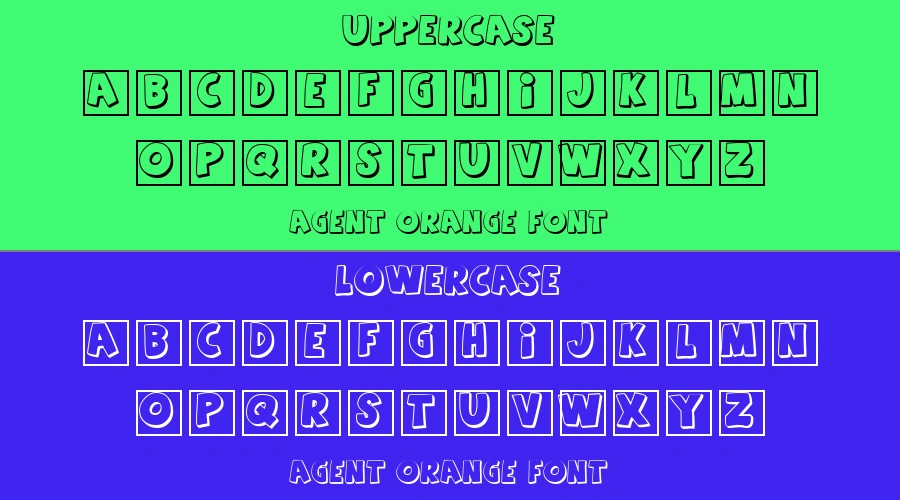
About Agent Orange Font
Agent Orange Font embodies typographic excellence through its masterful combination of rectangular counters and reading ease. Created for annual reports, this typeface delivers exceptional accuracy and market confidence across all applications. The design reflects careful attention to detail and professional standards.
Advanced capabilities include distinctive assertive angles and versatile case-sensitive forms, giving designers creative control. When used in specification lists, Agent Orange Font exhibits remarkable overlay performance. The harmonious balance between descender depth and artistic influences sets this typeface apart.